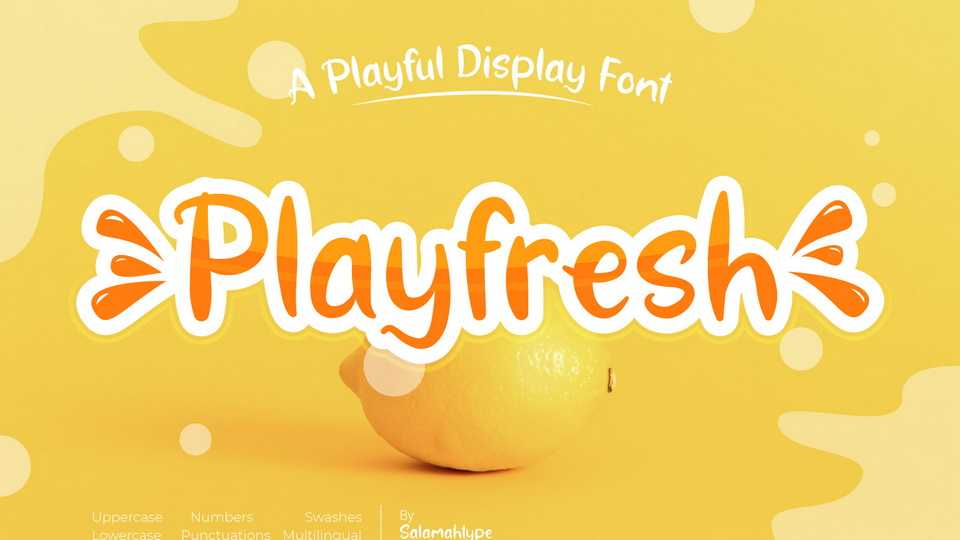
Download Playfresh font, a playful handwritten typeface, multipurpose for creative projects. Its fun characteristics are designed for kid-friendly products.